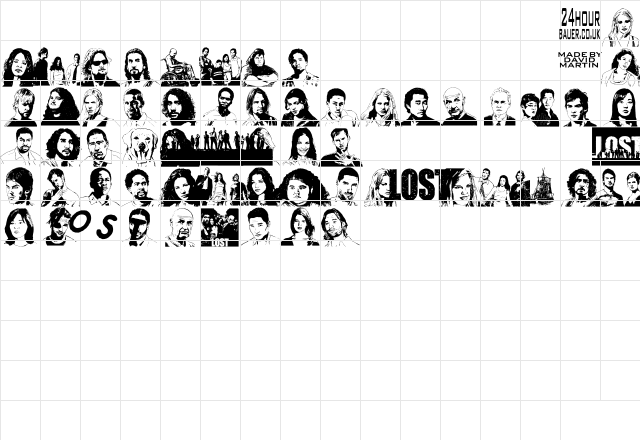
Lost Forever Regular
Complete Lost Forever Regular glyph index. Displaying only characters natively supported by Lost Forever Regular font.
Design Context for Lost Forever
Lost Forever is a composed and adaptable typeface that performs quietly and consistently across a wide range of design contexts.